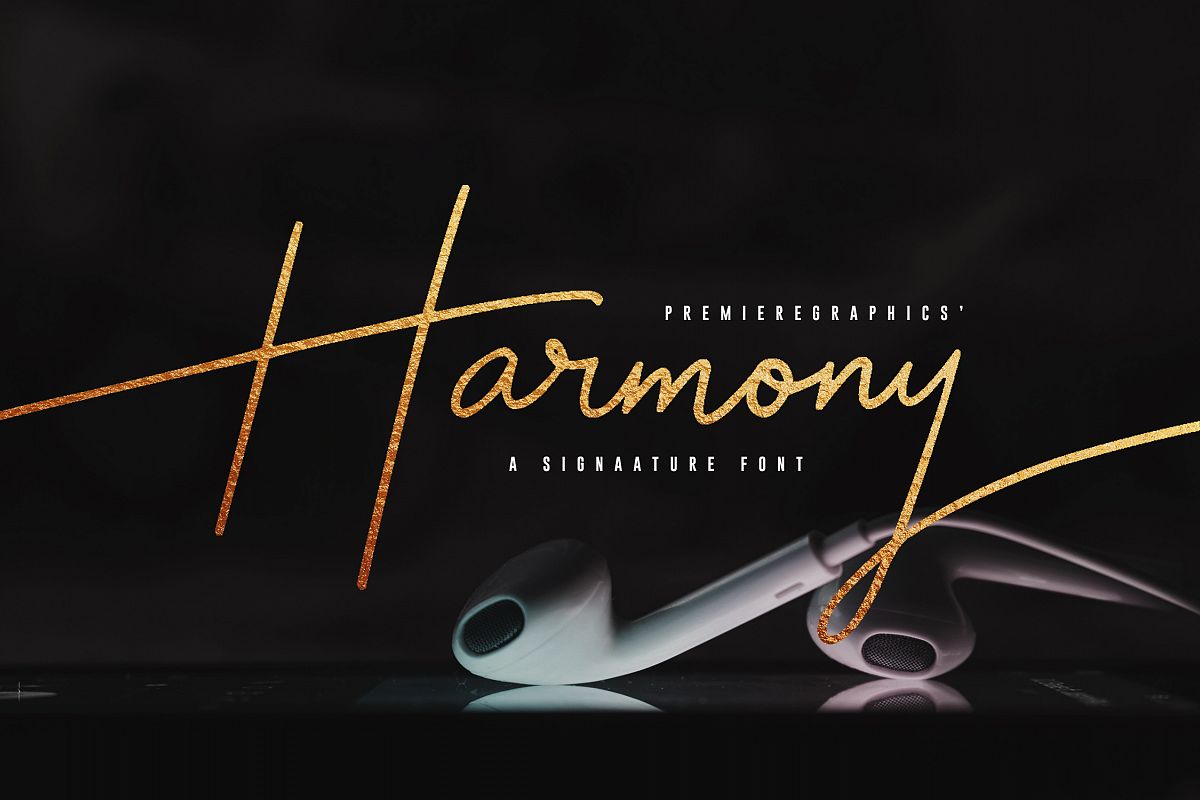
Harmony Script Font
Harmony makes small things grow, lack of it makes great things decay.
Introducing the latest addition to the script font families, the Harmony font! Harmony font is a handy script font for your blogs, photography, murals, calligraphy, graphic design, weddings, and many more. With its signature style, this font is ought to give you the satisfaction you are looking for on your project.
Harmony Script Font